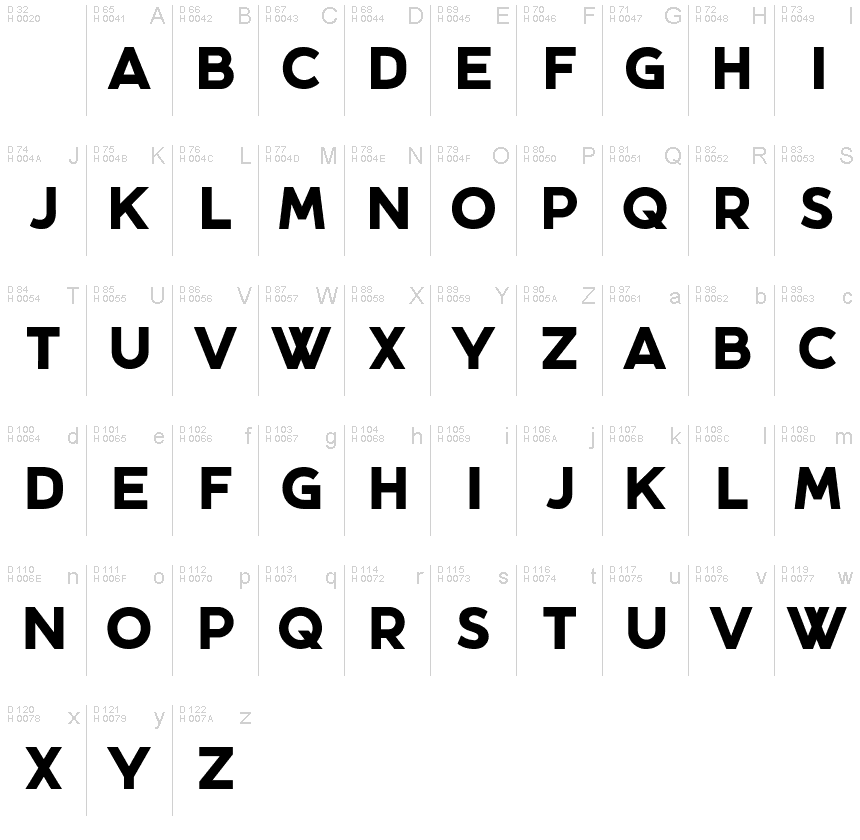
Sunshine Regular
Sunshine is a bold and impactful sans serif font designed by Vladimir Nikolic. With its semi-expanded width, Sunshine commands attention while maintaining legibility and readability. This versatile font is perfect for a range of projects, from branding and advertising to digital designs and print materials. Its clean lines and modern style make it ideal for fashion or beauty campaigns, while its bold weight makes it suitable for editorial headings or packaging design. Whether you're creating a website or designing a business card, Sunshine is the perfect choice for adding personality and flair to your project.